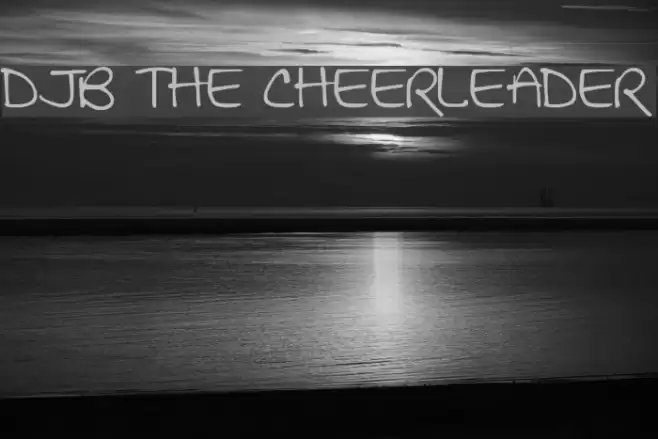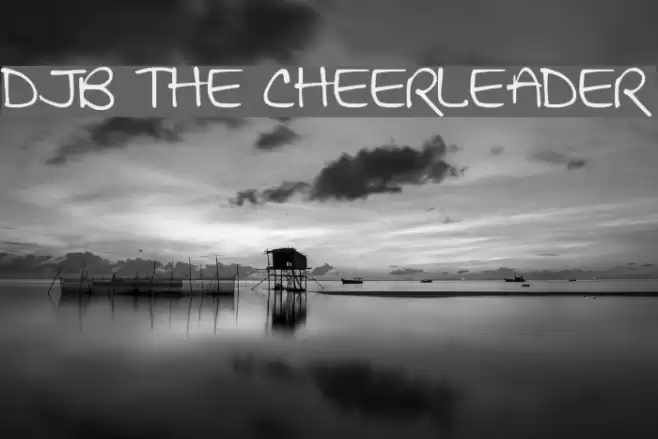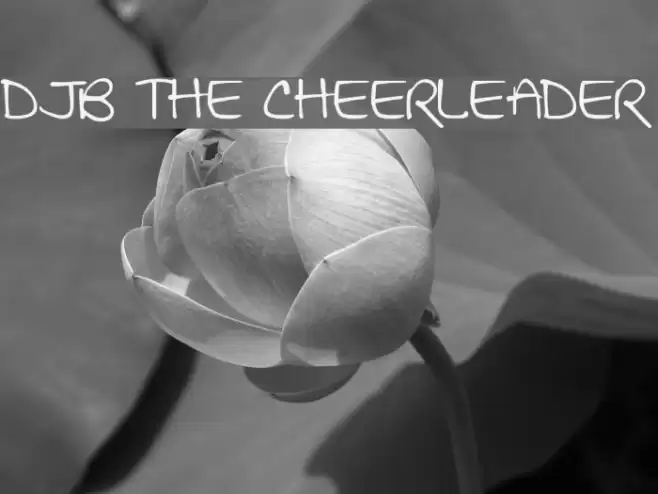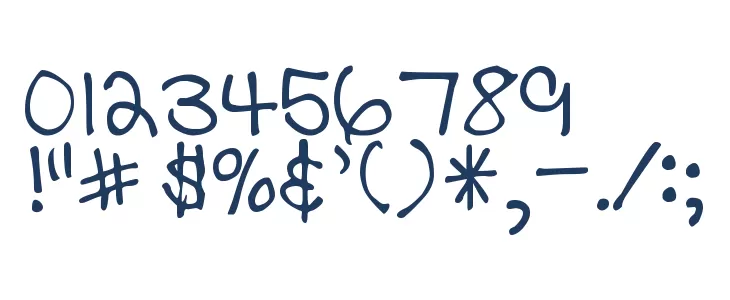
DJB THE CHEERLEADER Font
DJB THE CHEERLEADER Description
This playful and energetic font features a handwritten style with a casual and friendly appearance. The letters are slightly irregular, giving it a personal touch that mimics natural handwriting. The strokes are smooth and rounded, with a consistent thickness that maintains readability. The uppercase and lowercase letters are well-balanced, and the numerals are clear and distinct. Special characters are included, enhancing its versatility. This font exudes a youthful and lively vibe, making it suitable for projects that require a fun and approachable aesthetic.
A playful handwritten font with a casual and friendly style from Uncategorized fonts.
- Proposed Projects: Ideal for children's books, greeting cards, playful branding, and social media graphics.
- Overall Style: Casual
- Use Case: Headlines, Informal text, Creative projects